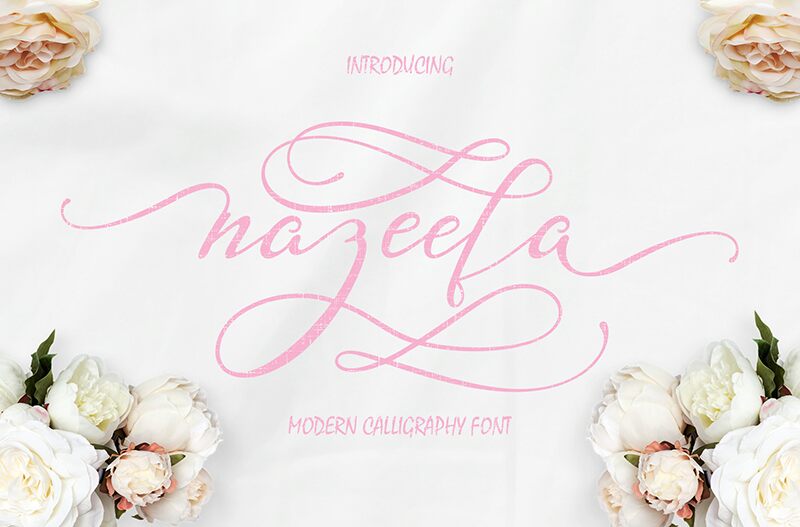
Nazeefa Script
Nazeefa Script is a captivating handwritten font that exudes elegance and sophistication. Designed by Aqr Typeface, this light-weight font boasts a mesmerizing flow, with each character seamlessly transitioning into the next. The script-like strokes and subtle flourishes lend an air of refined artistry, making Nazeefa Script a versatile choice for various design applications, from high-end branding to bespoke stationery.
Its unique personality shines through, captivating the viewer and adding a touch of refined charm to any project it graces.